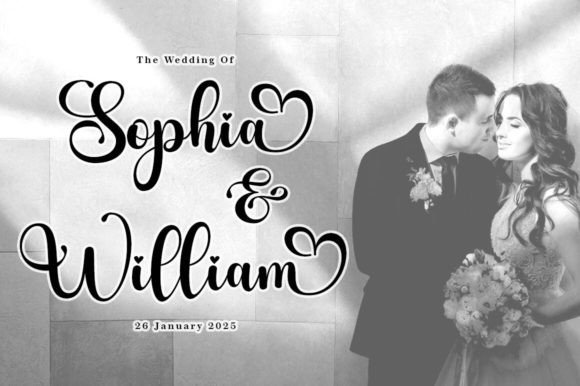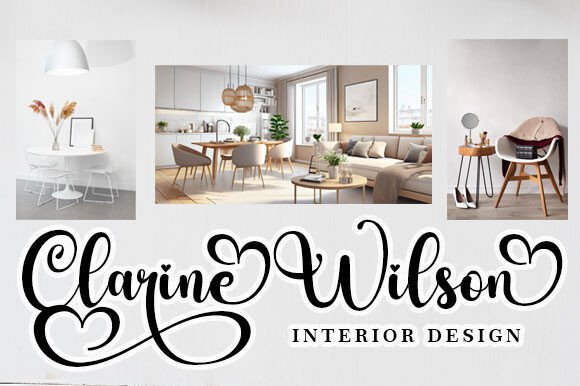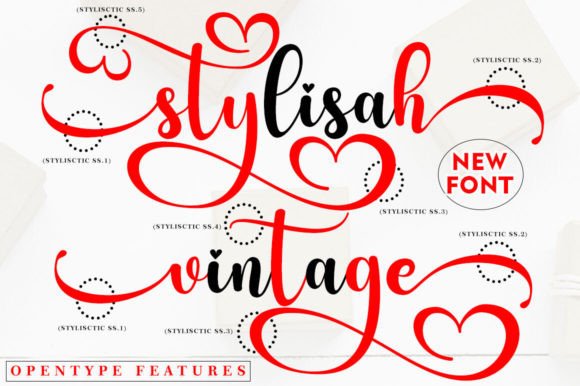
Basthiyan Font
Basthiyan is an enchanting handwritten font. This versatile script font has a wide spectrum of applications ranging from greeting cards to headlines and is guaranteed to add a romantic feel to your next project.